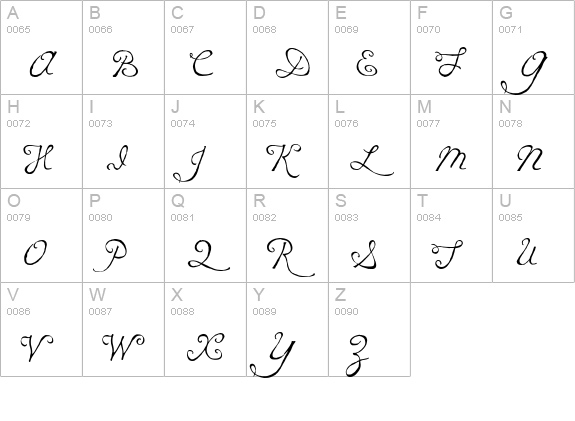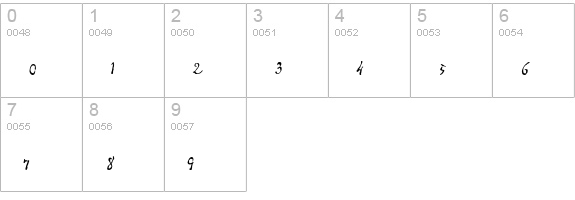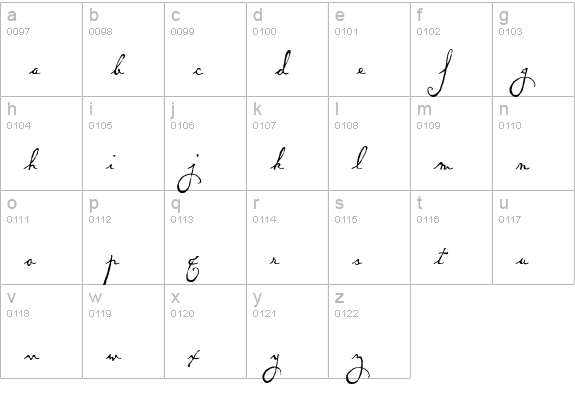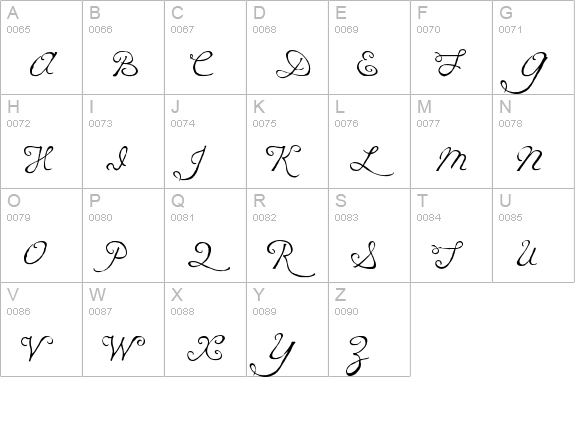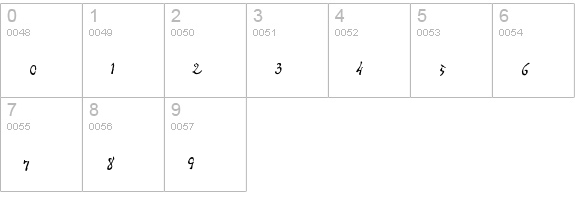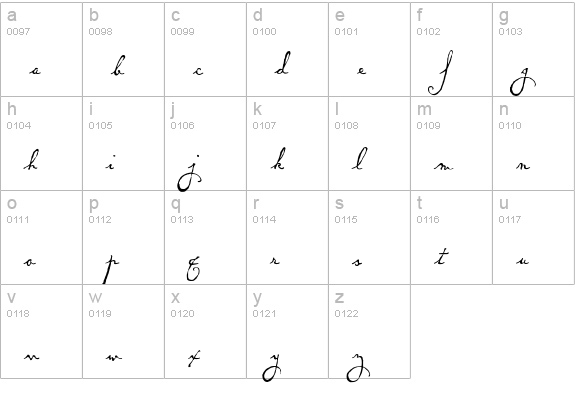
CK Renaissance Font Details
Introducing CK Renaissance, a stunning font that perfectly captures the essence of elegance and sophistication. This timeless typeface exudes a sense of refinement and charm, making it ideal for projects that require a touch of class. The intricate details and graceful curves of CK Renaissance will add a touch of luxury to any design. What makes CK Renaissance even more appealing is that it is available for free! You can easily download this exquisite font from FontsMarket.com and elevate your designs with its classic beauty. Whether you're working on invitations, branding, or any other creative project, CK Renaissance is sure to make a lasting impression. Embrace the beauty of this font and let it bring a touch of Renaissance-inspired style to your work.